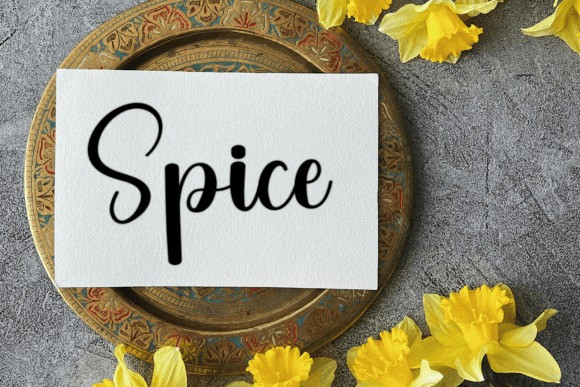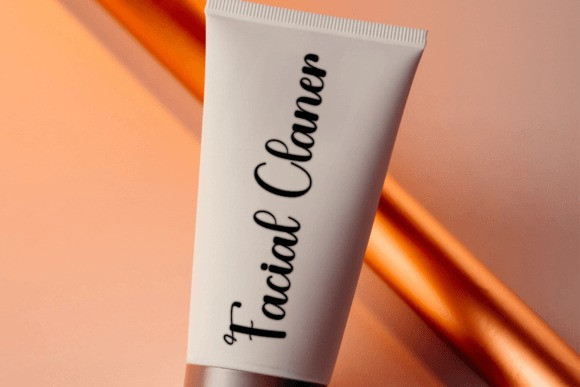
Grincher Script Font
Grincher Script Font is a stylish beautiful and elegant font with a contemporary atmosphere and impeccable form, inspired by a timeless classic calligraphy. Balanced and varied, this font was designed to enhance the beauty of your projects.